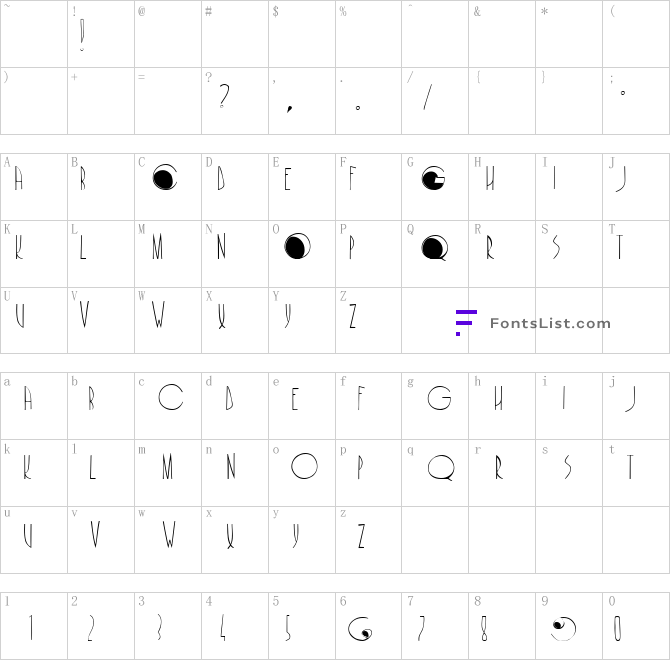
- Font Name:CafeNoirFill
CafeNoirFill.ttf is a very beautiful artistic font, CafeNoirFill.ttf is widely used in the design and printing of various books and pictures,CafeNoirFill.ttf has a strong visual impact,CafeNoirFill.ttf is a commonly used font in newspapers, magazines and books, and is used in posters, e-commerce Poster design, store design, logo design, font design and other fields.CafeNoirFill.